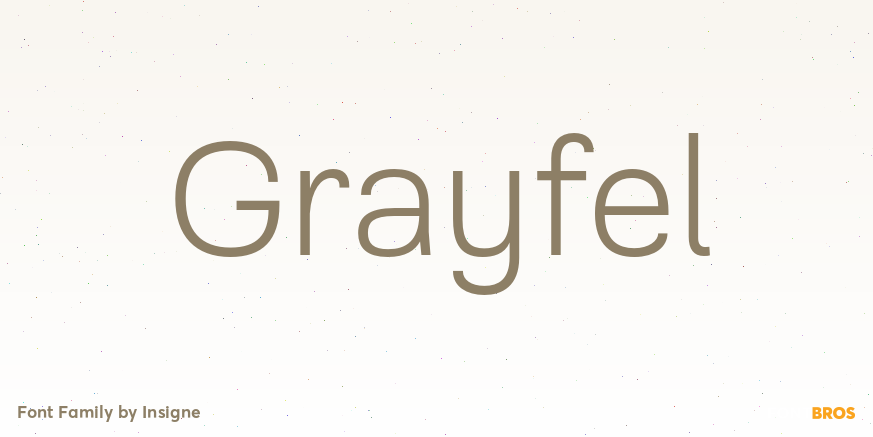
Grayfel
About Grayfel
Grayfel began as an exercise at insigne to explore the crowded space of neutral sans. While the world of sans serifs is admittedly crowded, I still managed to find something new and different. The final Grayfel consists of 42 full-featured OpenType fonts…